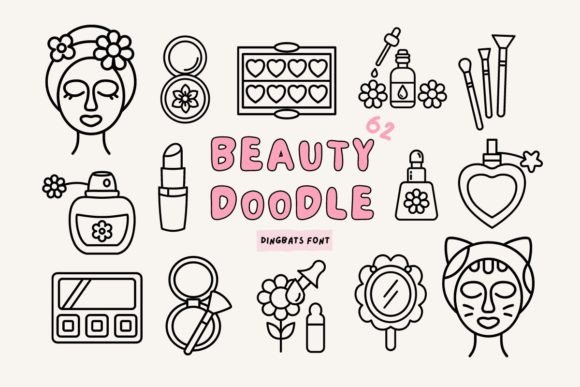
Welcome to the realm of Beauty Doodle Font, a captivating dingbat font family that sparks imagination and adds a touch of delightful charm to your designs. Created by the talented Babymimiart, this font set presents a captivating assembly of hand-drawn illustrations, each meticulously crafted to embody the essence of beauty, self-care, and cosmetics.
With Beauty Doodle Font, you're not just downloading a font; you're embarking on an artistic journey, transforming your creations into visually striking masterpieces. Picture the allure of a cosmetic brand logo, infused with the whimsical elegance of Beauty Doodle's illustrations, captivating the attention of potential customers and leaving a lasting impression. Or envision the enchantment of a beauty blog, where each post comes alive with vibrant visuals, drawing readers deeper into the world of cosmetics and self-care.
Beauty Doodle Font isn't just a collection of characters; it's a gateway to unleashing your creativity and expressing your unique style. Let your imagination soar as you craft social media graphics that pop with personality, captivating your audience with every scroll. Whether you're a seasoned designer or just starting your creative journey, Beauty Doodle Font is your passport to a world of captivating visual storytelling.
For those seeking a font that ignites inspiration and adds a touch of magic to their designs, Beauty Doodle Font is the perfect choice. Its playful illustrations and charming aesthetics are sure to leave an unforgettable mark on your audience. Embrace the beauty of creativity and let Beauty Doodle Font guide you towards captivating designs that resonate with your audience.